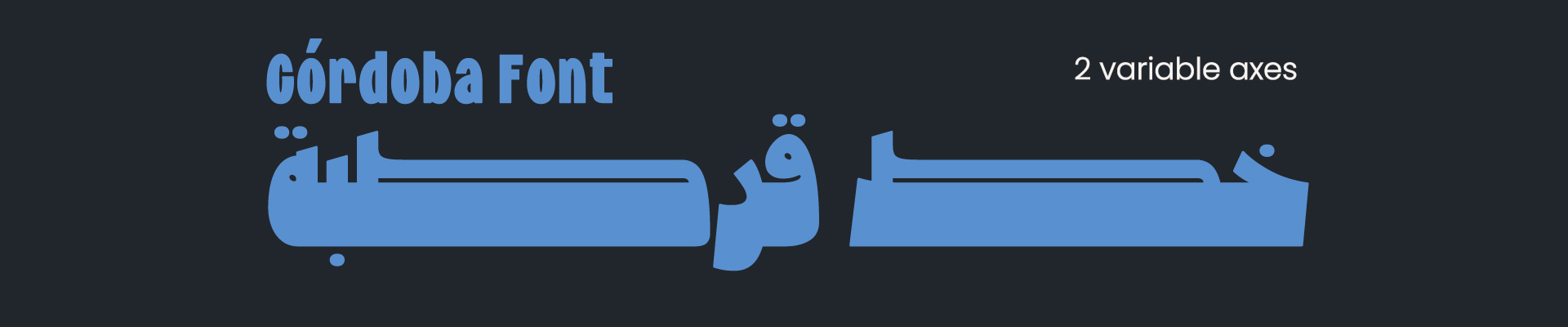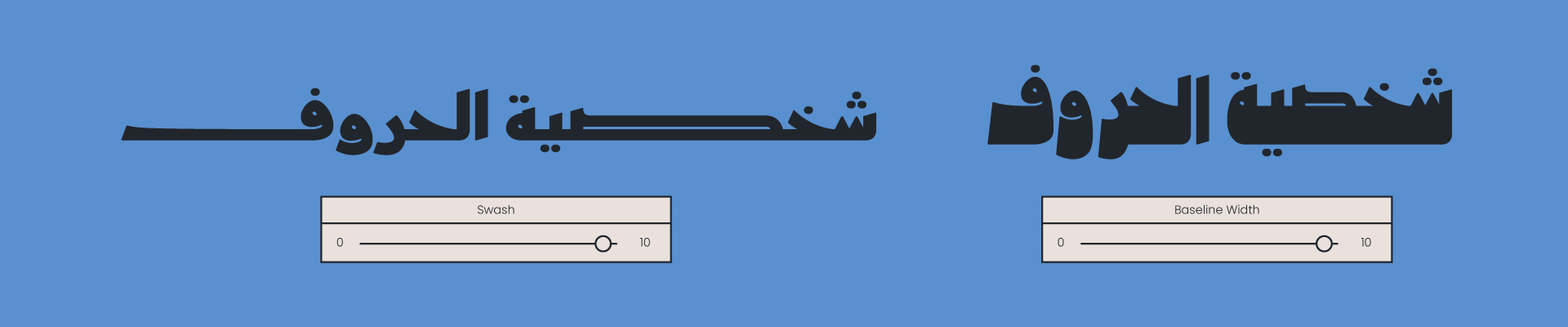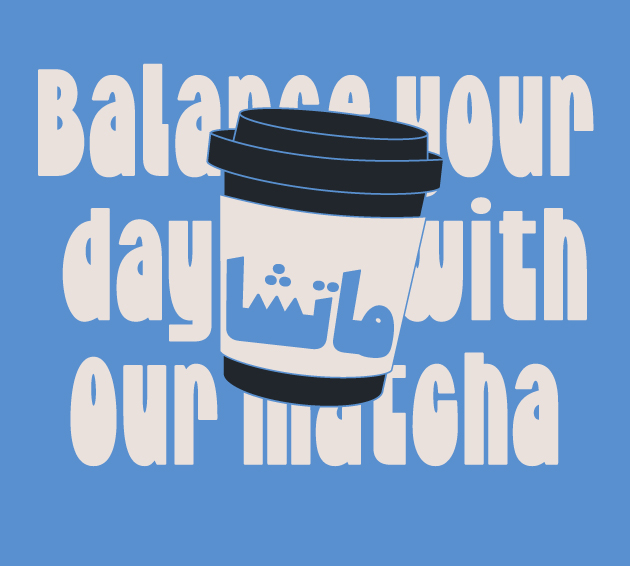
About Cordoba Font:
Cordoba — A Variable Font Inspired by Mus’haf Kufic Script
Reinterpreted through a contemporary lens with two variable axes. The typeface is capable of shifting between two distinct personalities — playful and serious — through an expansion axis, in addition to the ability to fine‑tune text spacing by controlling the extension of letter bowls and counters.
The typeface supports both Arabic and Latin scripts, and is well-suited for short texts, bold headlines, posters, and social media applications.